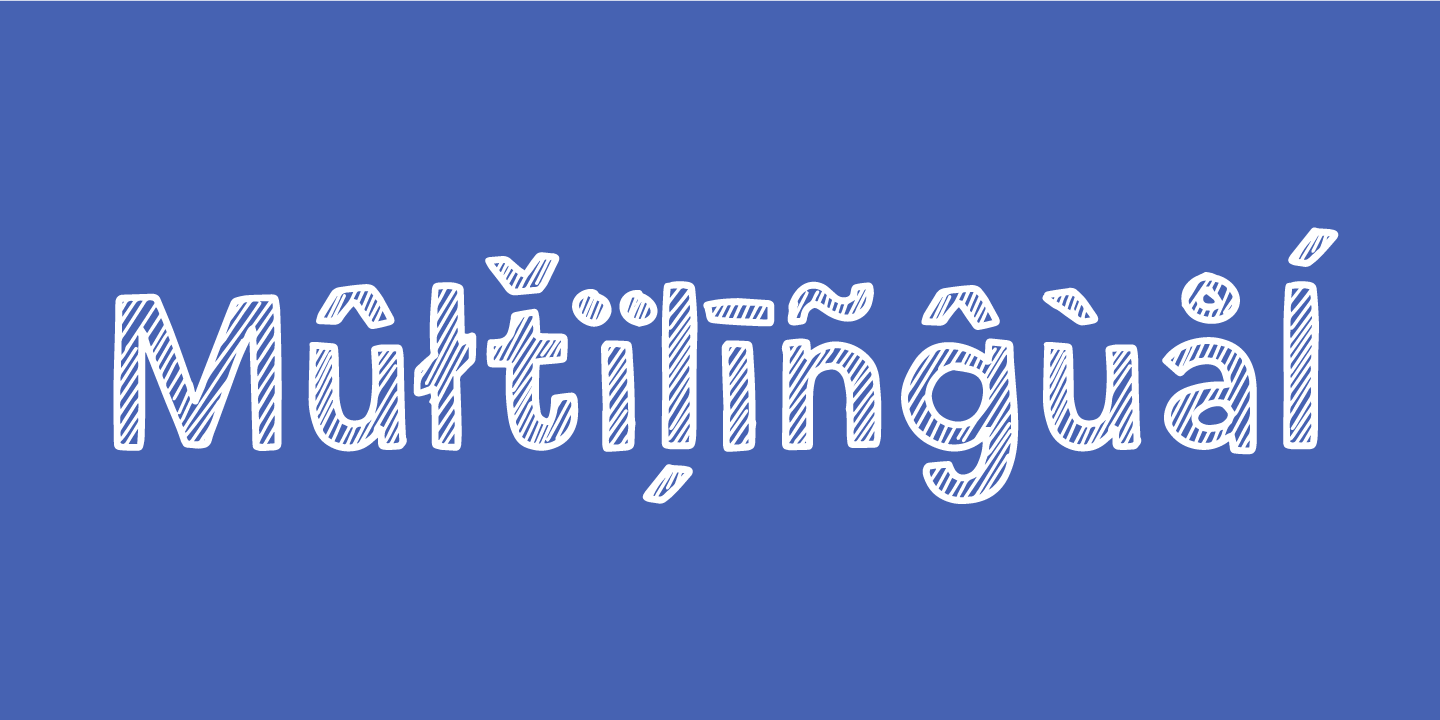
This fluid typeface is perfect for instant food packaging, quick meal solutions, convenience product branding, camping gear labels, emergency food supplies, busy lifestyle marketing, time-saving product communications, and efficient cooking promotions that require simple convenience and effortless sophistication with instant gratification and practical authenticity.
Just Add Water Font is exciting because it brilliantly captures the essence of modern convenience and instant solutions through its streamlined letterforms that evoke the simplicity of quick preparation and the satisfaction of effortless results. The font's distinctive character design and practical aesthetic reflect the world of convenient living and time-saving innovations, making it perfect for food brands that want to convey instant convenience, practical efficiency, and the kind of effortless simplicity that appeals to busy consumers seeking authentic quick solutions and hassle-free meal preparation experiences.
The Just Add Water Font family includes convenience-inspired variations and practical styling options, featuring light, regular, medium, and bold weights, along with instant design elements and efficiency alternates that provide convenience food companies and designers with comprehensive typographic tools for creating authentic quick-solution branding and practical convenience communications.
Simplify your design process with Just Add Water Font Free Download, a typeface that brings instant convenience to contemporary food and lifestyle branding projects. This exceptional font combines practical efficiency with commercial appeal, making it an essential resource for convenience food manufacturers, camping equipment brands, and designers working on time-saving or efficiency-focused marketing campaigns. The efficiently crafted letterforms ensure excellent readability while conveying the instant convenience and practical sophistication that defines this distinctly efficient and authentically convenience-oriented typeface.